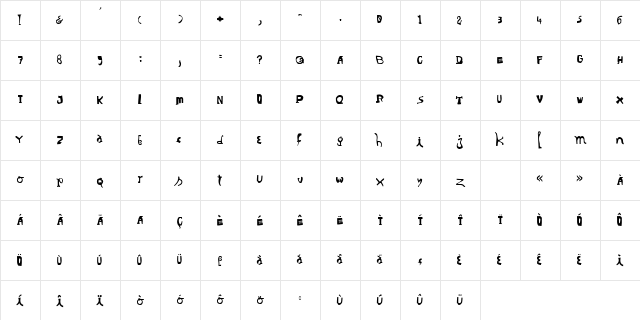
Complete LaDaphnAnormal Medium glyph index. Displaying only characters natively supported by LaDaphnAnormal Medium font.
LaDaphnAnormal is a composed and adaptable typeface that performs quietly and consistently across a wide range of design contexts.